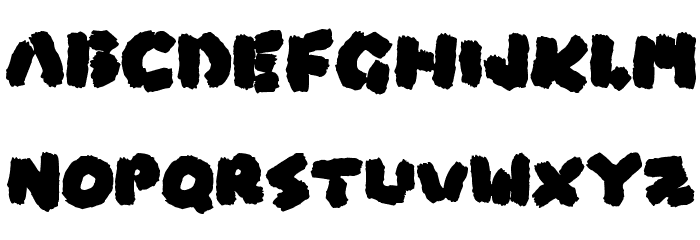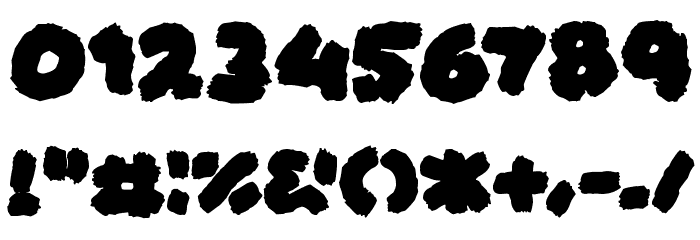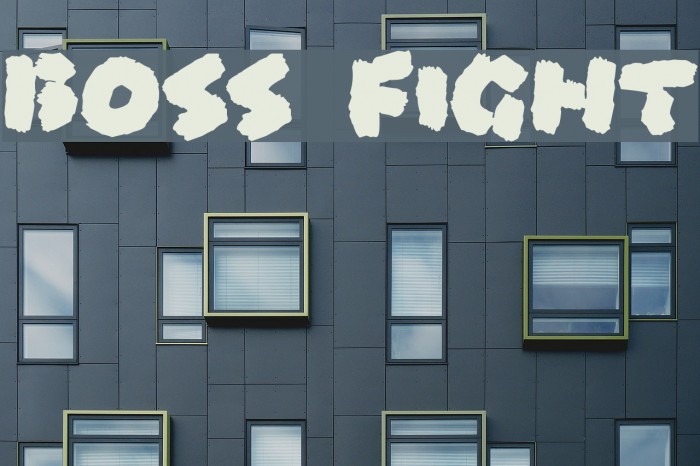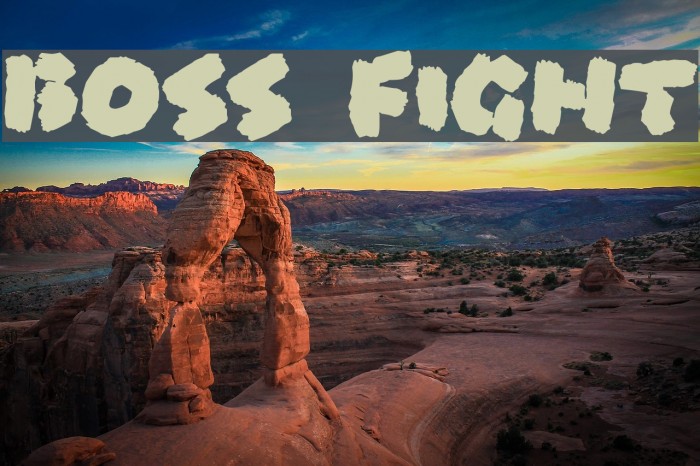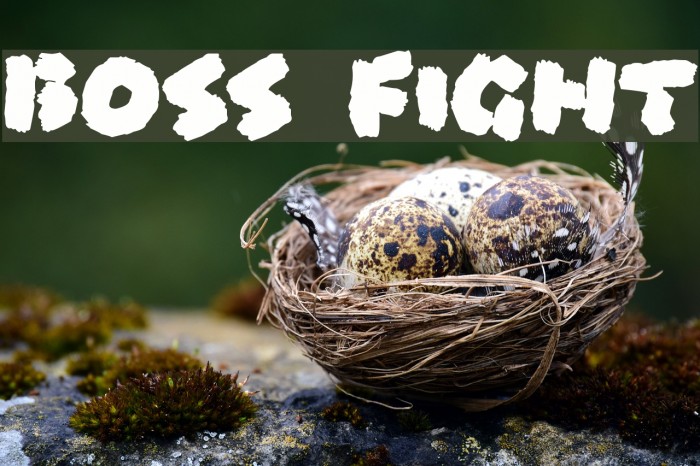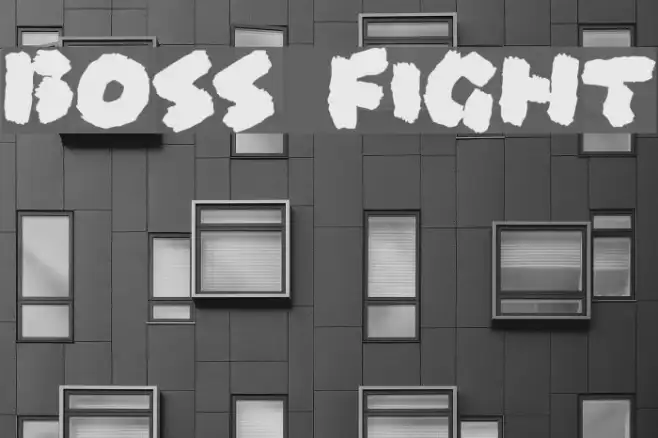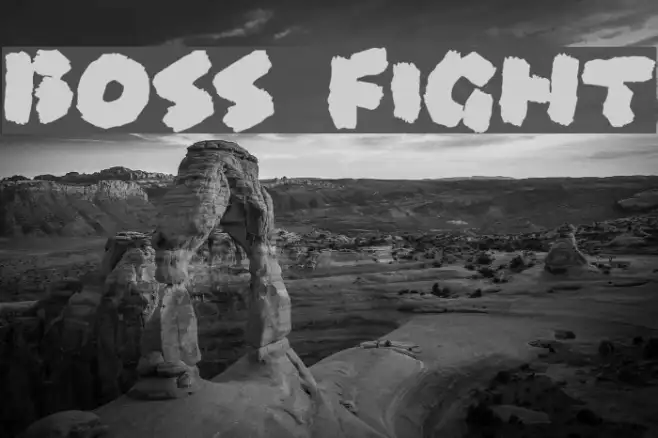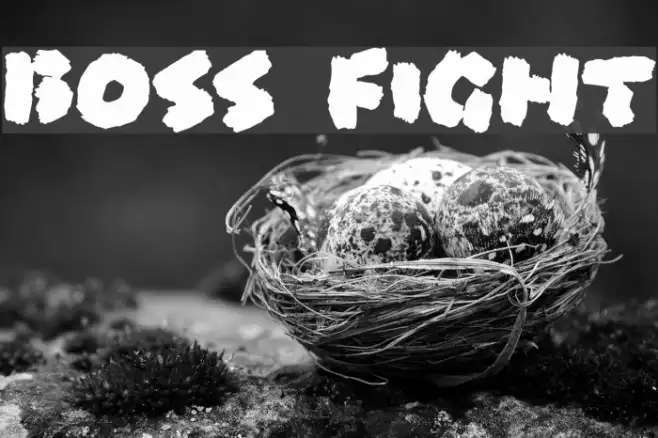
Boss Fight Font
This font features a bold, rugged style with a hand-painted appearance, characterized by its thick, uneven strokes and rough edges. The letters have a dynamic, energetic feel, reminiscent of graffiti or street art, making it stand out with its unique and expressive design. The uppercase and lowercase letters maintain a consistent style, providing a cohesive look across the alphabet. The numbers and special characters follow the same bold and rough aesthetic, ensuring uniformity throughout. This font's distinctive style is perfect for projects that require a strong visual impact.
A bold, rugged font with a hand-painted, graffiti-like appearance.
- Proposed Projects: Ideal for posters, album covers, streetwear branding, and any project needing a bold, artistic touch.
- Overall Style: Modern, Artistic